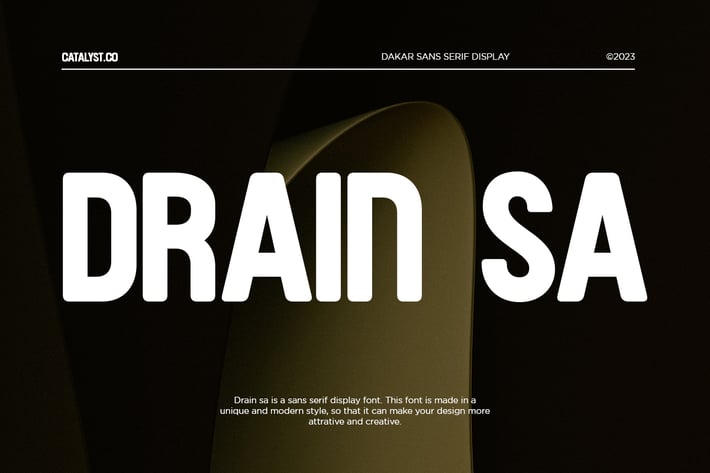
Drain Sa Sans Serif Display Font
Drain Sa Sans Serif Display Font is a bold sans serif display font built with a strong compressed structure and solid geometric forms. Its heavy weight, tight spacing, and distinctive character shapes create an impactful visual presence suitable for posters, branding, titles, sports graphics, and bold advertising layouts. The modern industrial aesthetic gives each composition a confident, attention-grabbing look. Includes uppercase, lowercase, numerals, and punctuation in OTF, TTF, and WOFF formats.
Relevance and Use Cases is perfect for posters, sports graphics, bold branding, editorial titles, advertising layouts, event promotions, streetwear campaigns, digital banners, and any design that needs strong modern display typography. Suitable for poster layouts, sports branding, large headlines, event promotions, album covers, digital advertising, bold marketing visuals, modern editorial designs, and impactful graphic compositions.